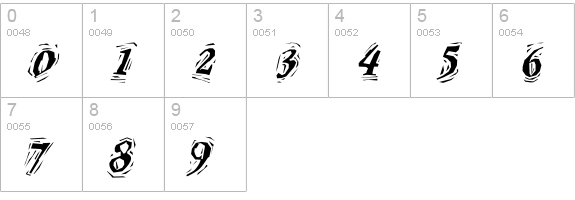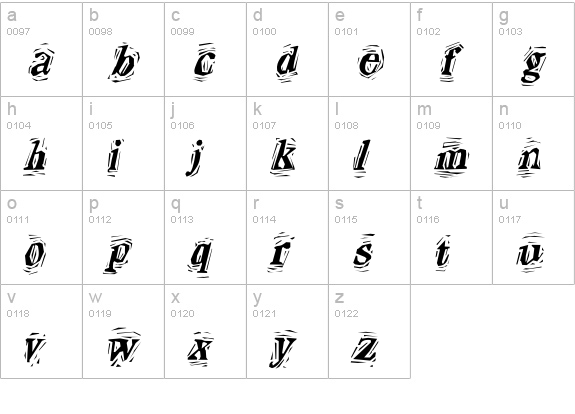
Craft-Black Font Details
Craft-Black is a maximum-weight, dramatic variant in the Craft typeface family \xE2\x80\x94 well suited to maximum-impact headlines, posters, and packaging.
Craft-Black is a stunning display font that exudes elegance and sophistication. With its bold and intricate design, Craft-Black is perfect for making a statement in your designs. The sharp lines and unique curves of this font make it stand out and grab attention. Craft-Black is versatile and can be used for a variety of projects, from branding to packaging to social media graphics. The best part is that Craft-Black is completely free to download at FontsMarket.com. You can easily add this eye-catching font to your collection and elevate your design projects. Don't miss out on the opportunity to enhance your creations with the timeless beauty of Craft-Black. Download it now and let your creativity shine!